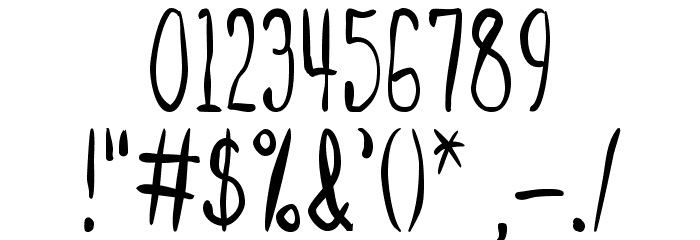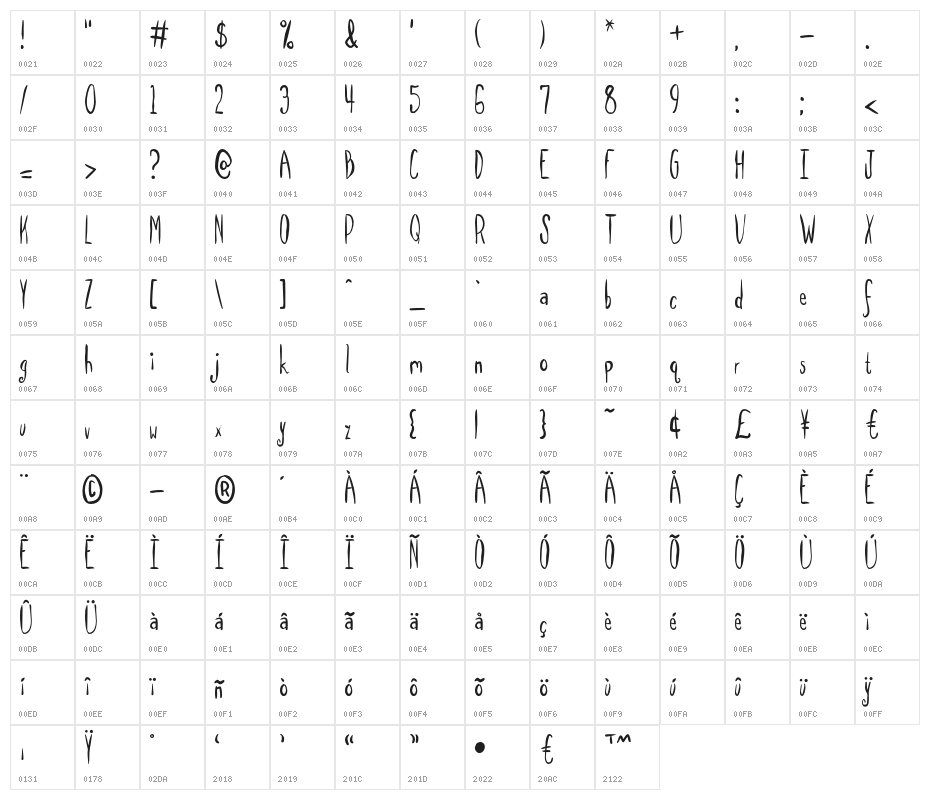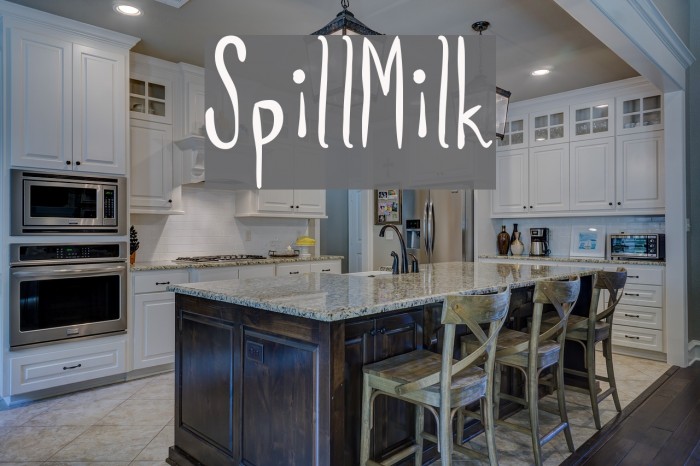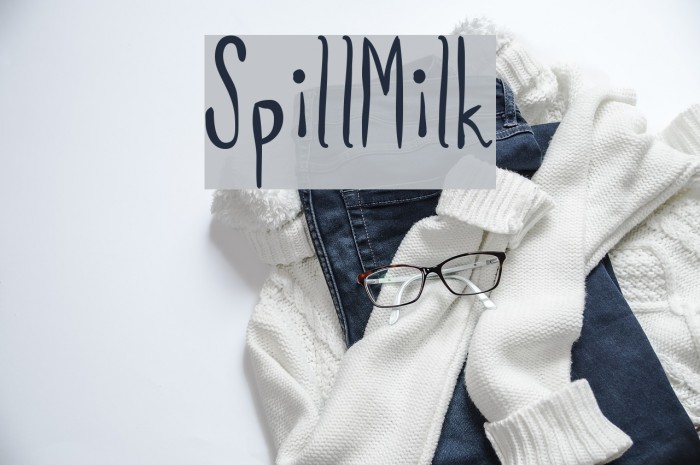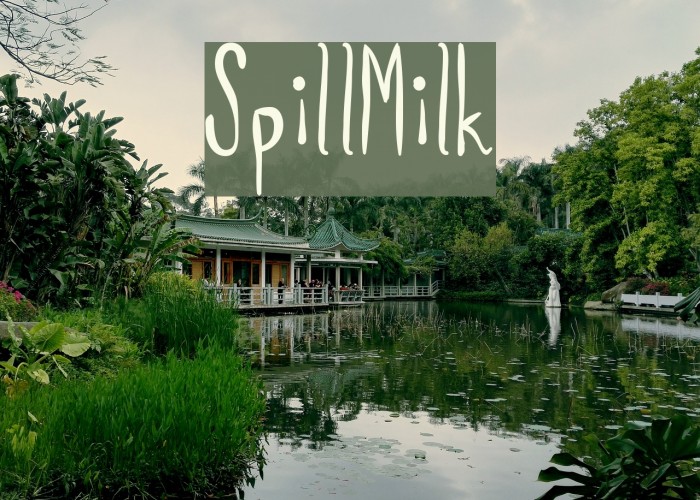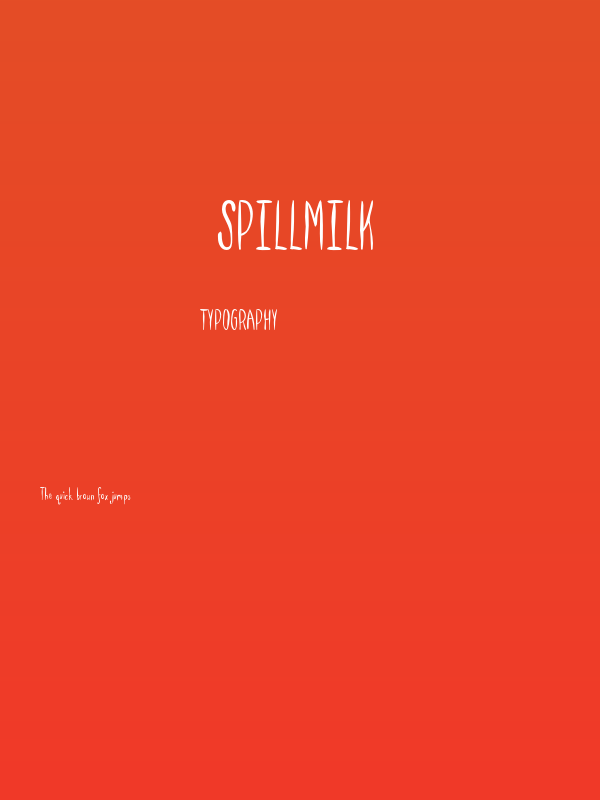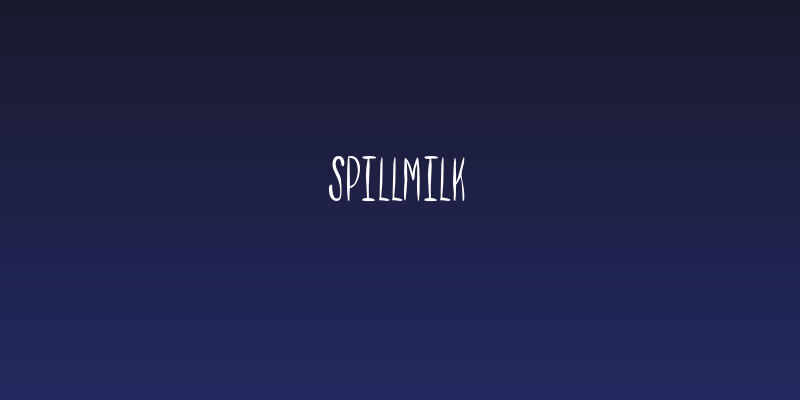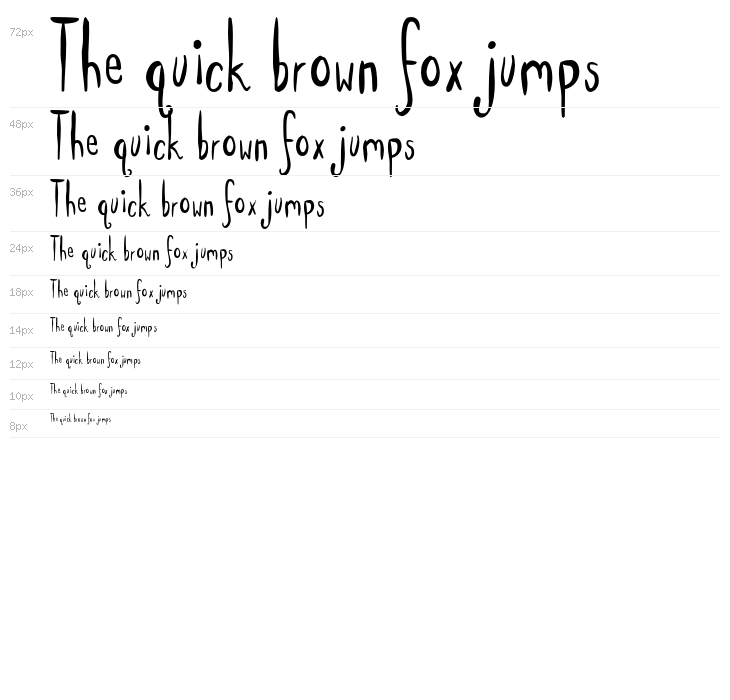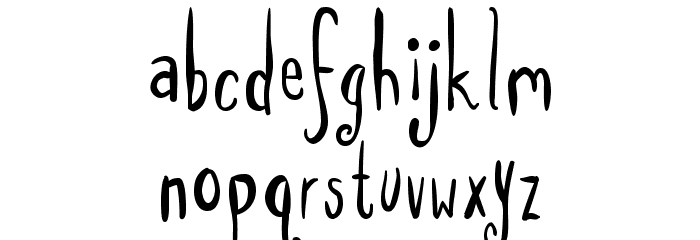
SpillMilk Font
SpillMilk Description
This playful and quirky font features tall, narrow letters with a hand-drawn appearance, giving it a whimsical and informal style. The uneven strokes and slightly irregular shapes add a sense of spontaneity and creativity, making it ideal for projects that require a fun and approachable aesthetic. The uppercase and lowercase letters maintain a consistent height, while the numbers and special characters complement the overall design with their unique flair. This font's distinctive personality makes it suitable for a variety of creative applications.
| Proposed Projects | Ideal for children's books, greeting cards, playful branding, and creative posters. |